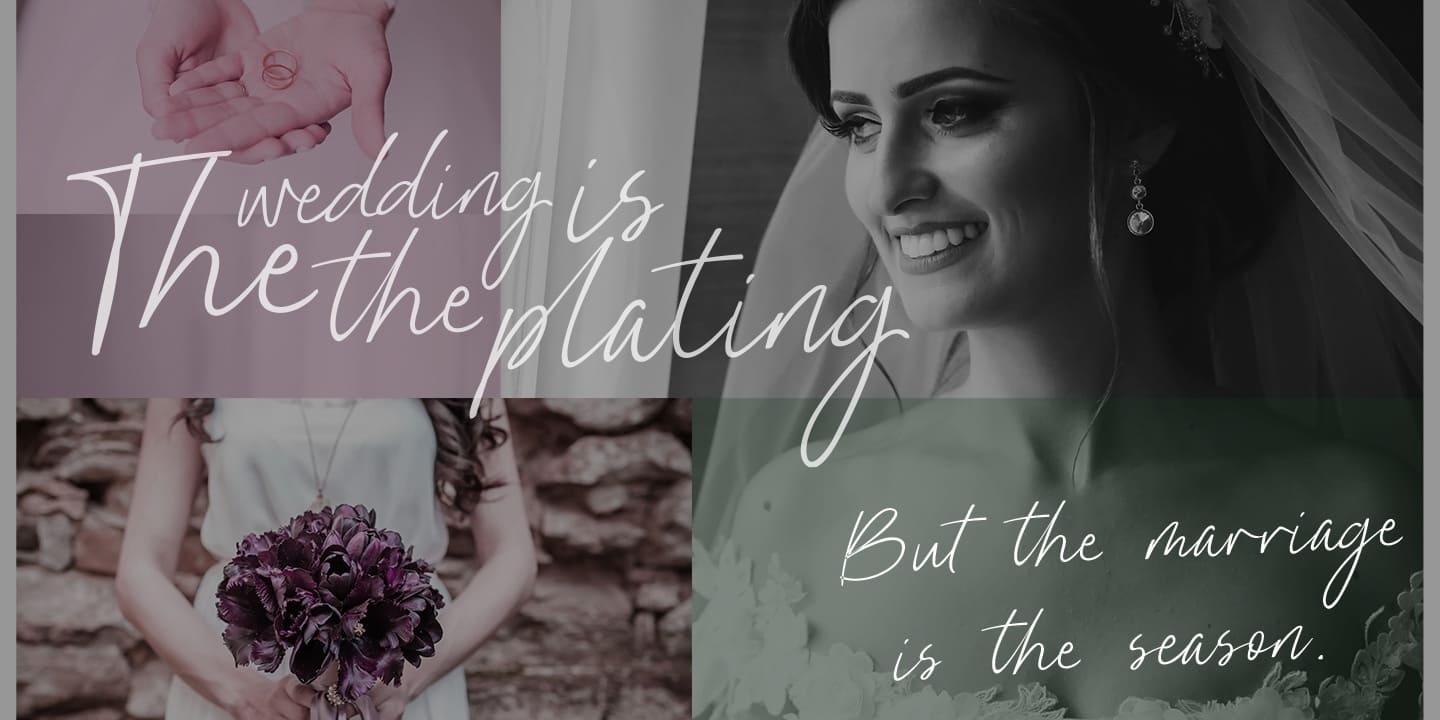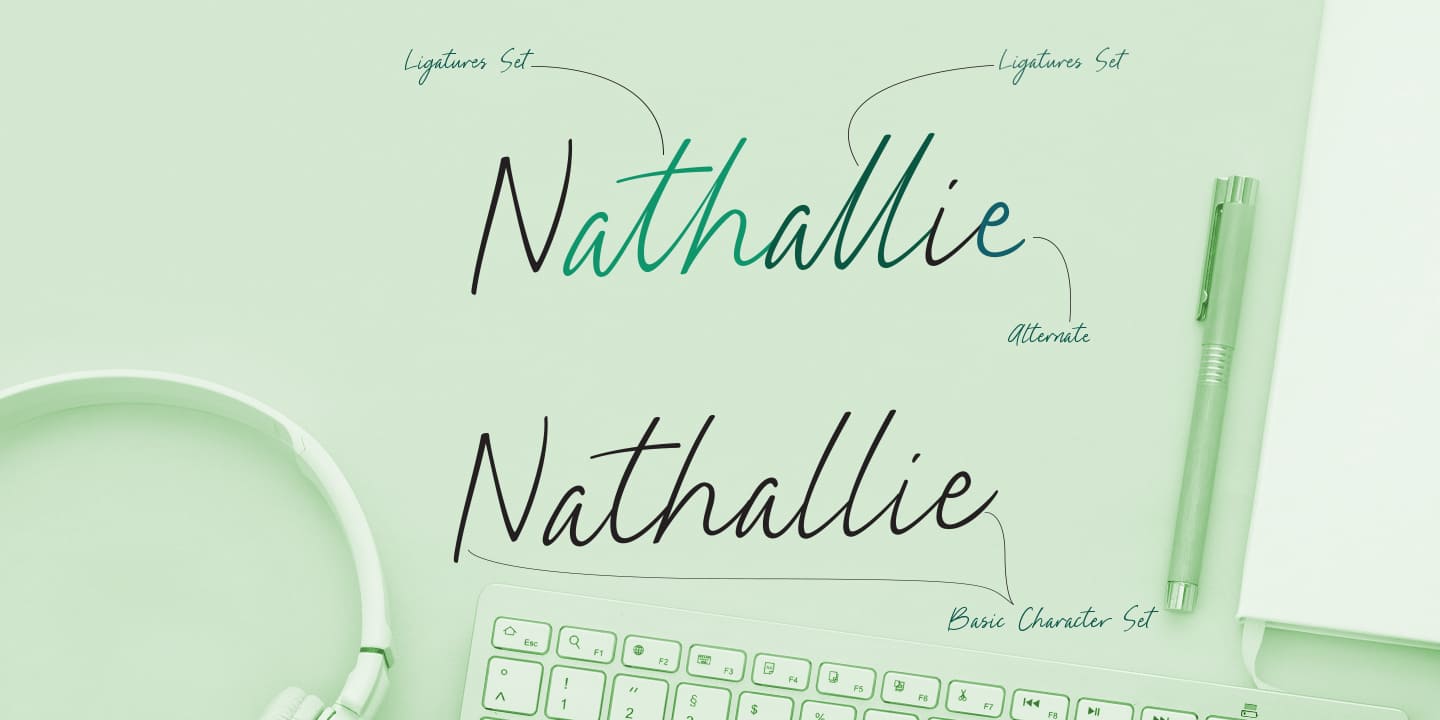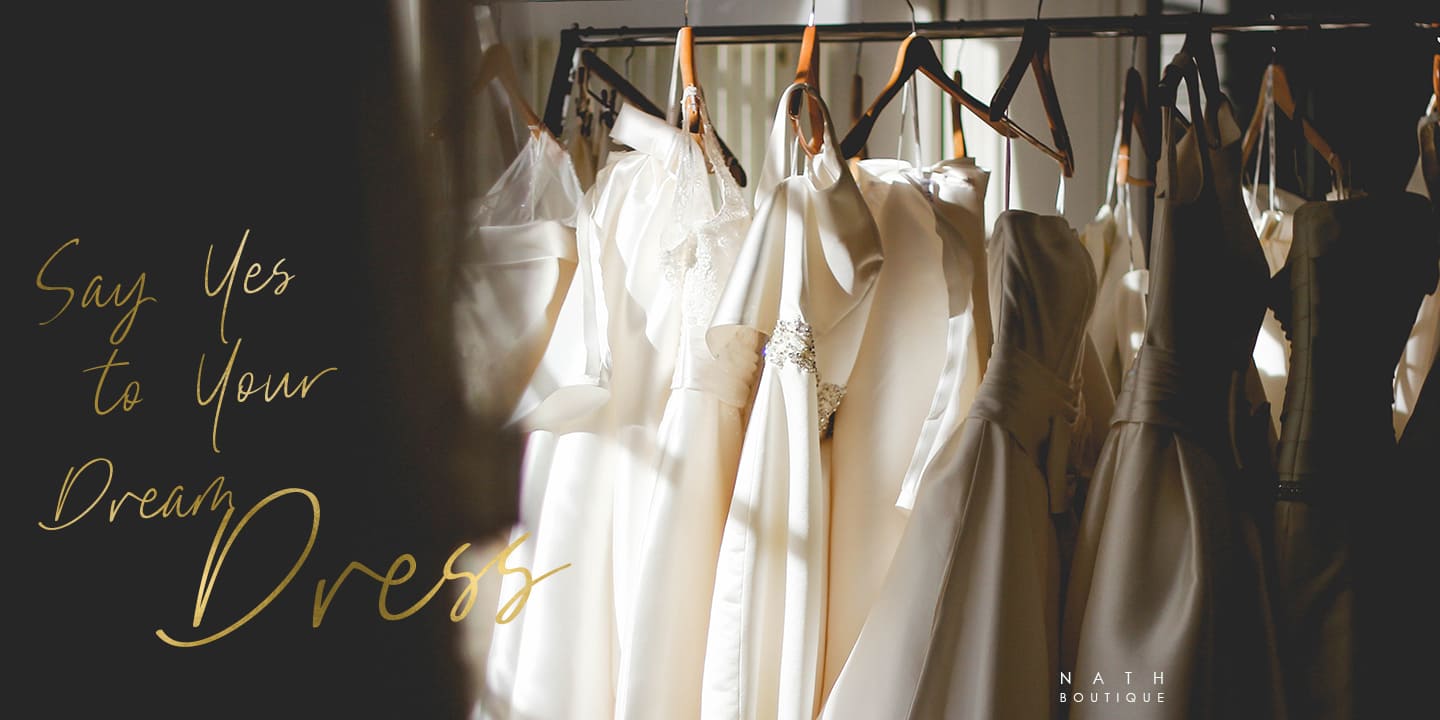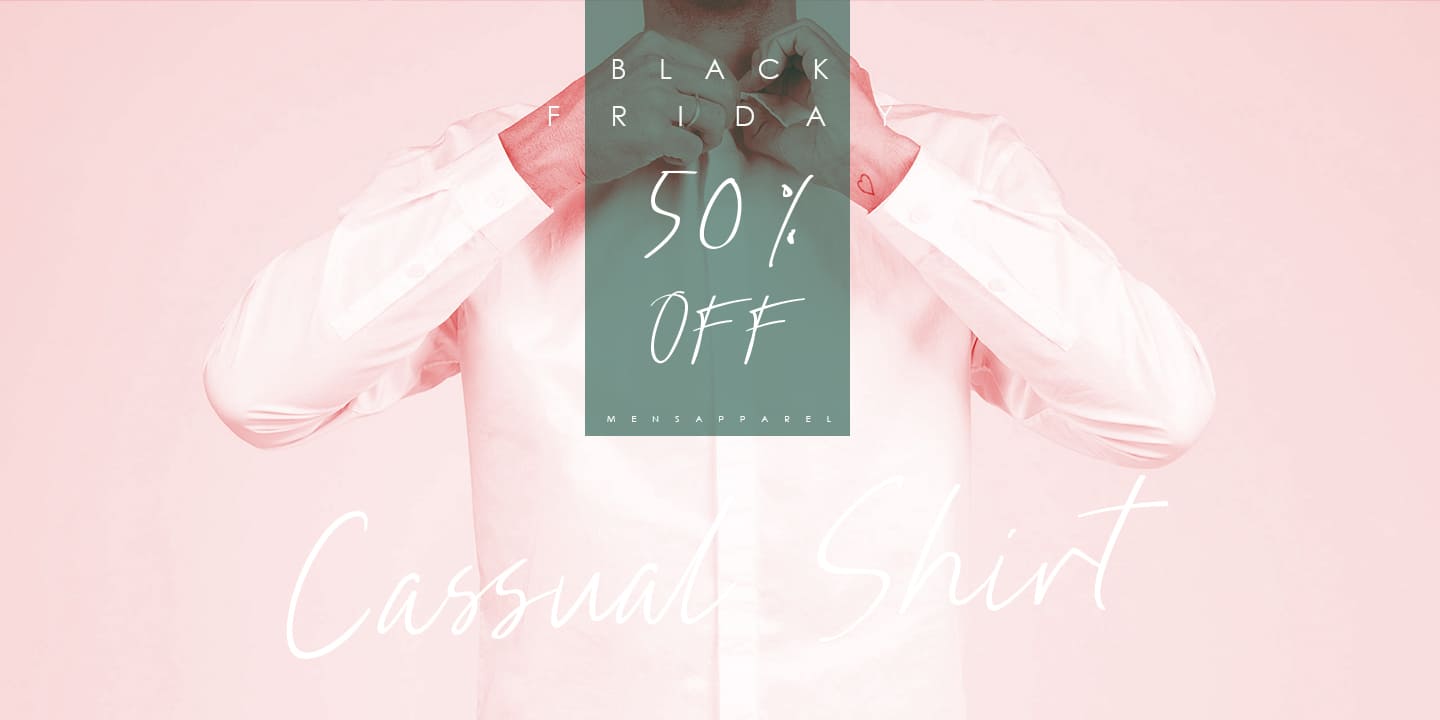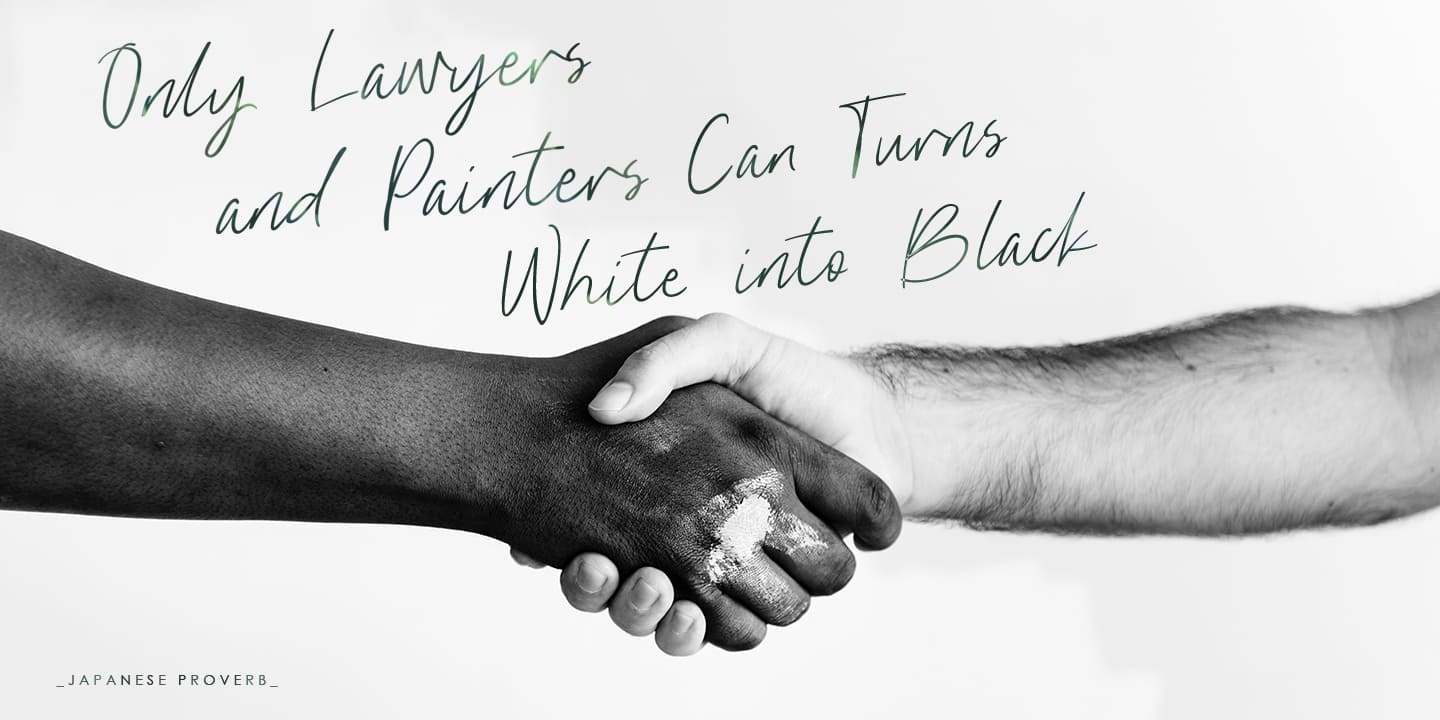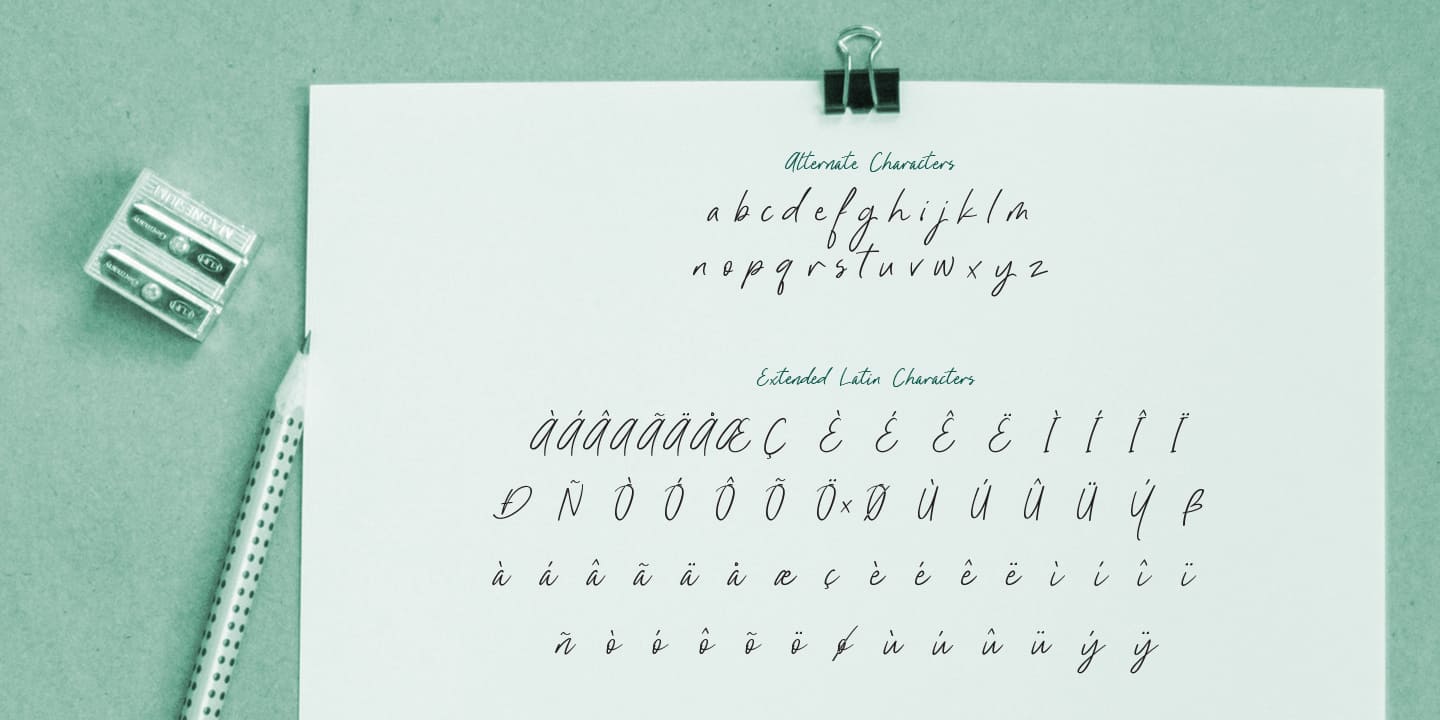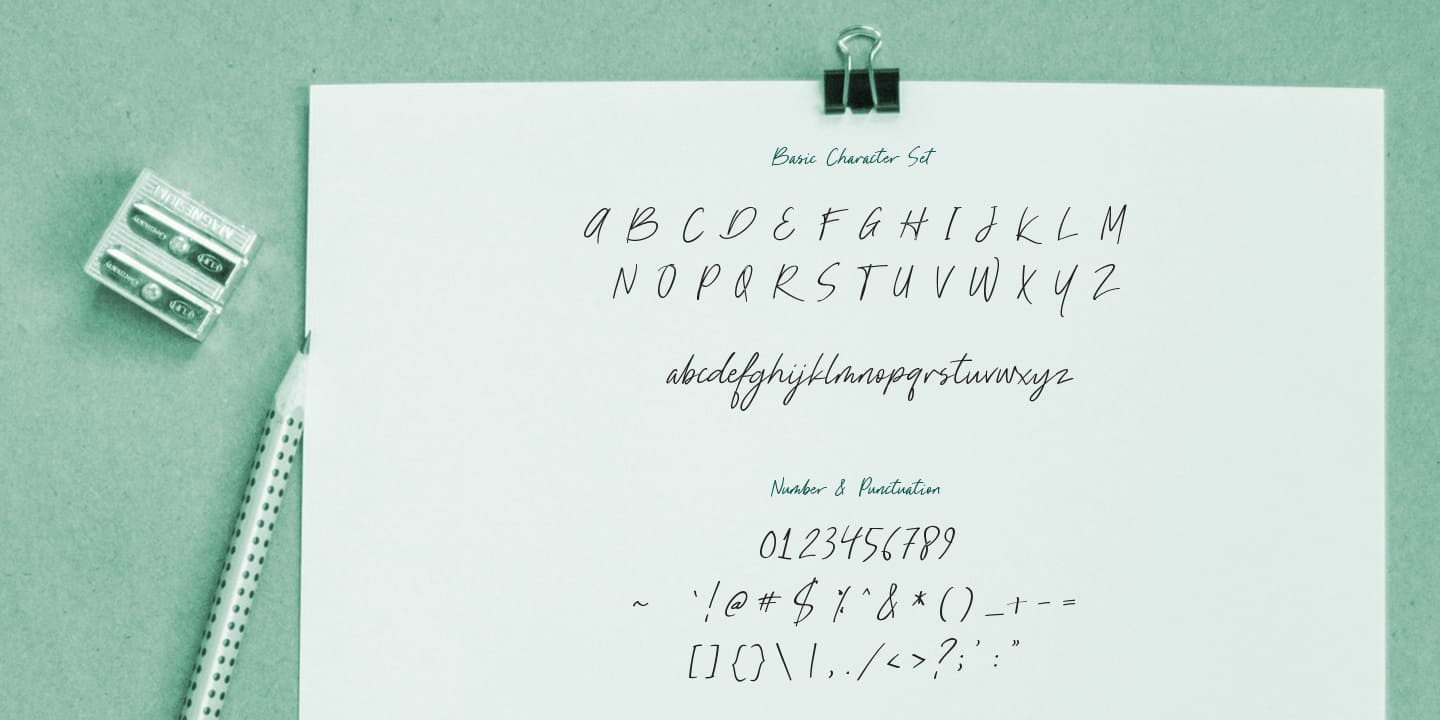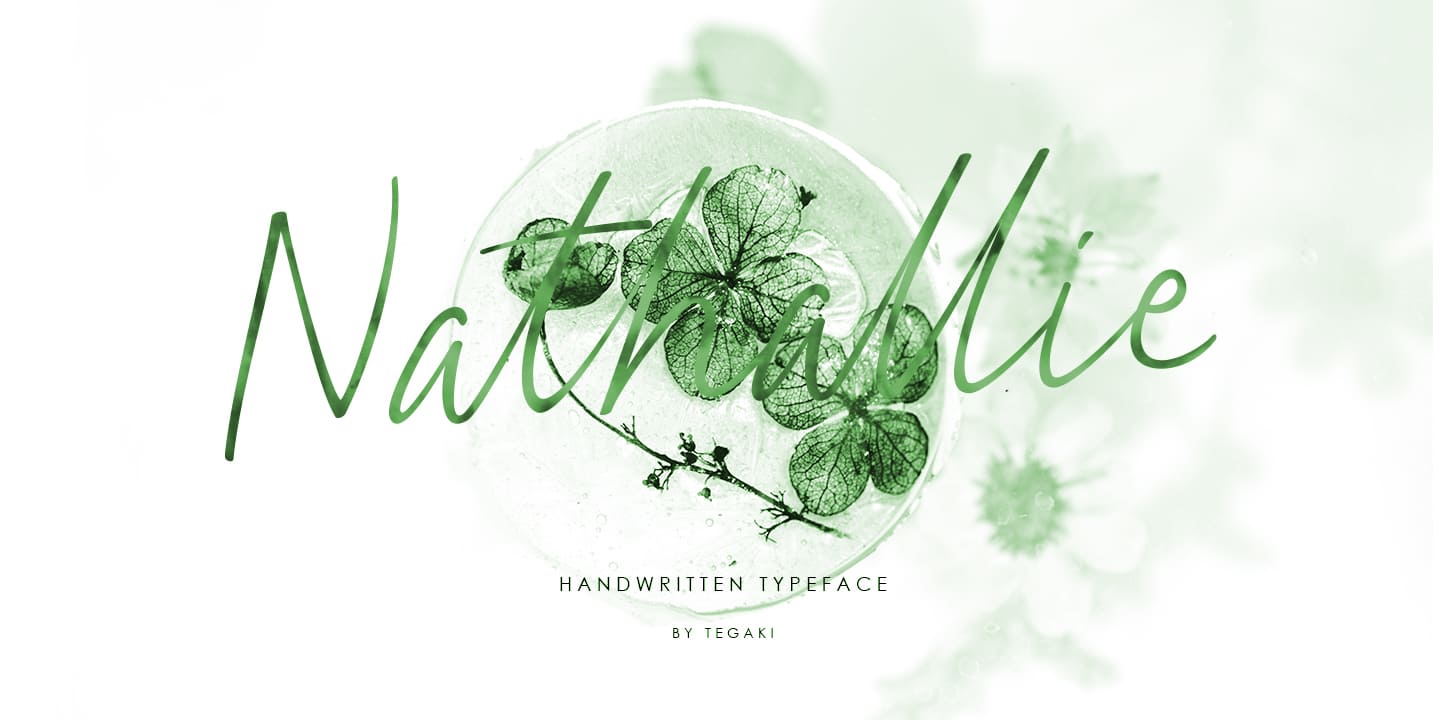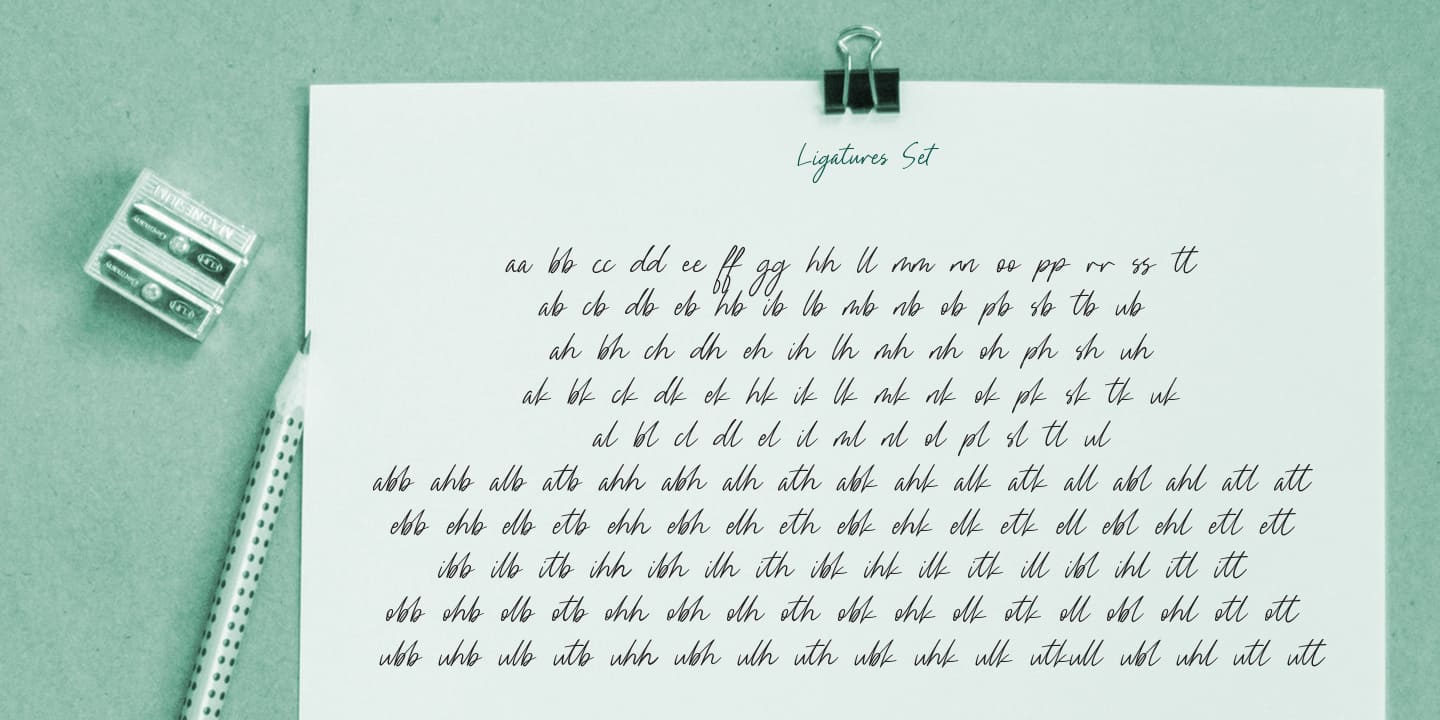
Nathallie Script (1 font)
Nathallie is created with stylist and handwritten characters and is PUA encoded. Nathallie is a natural handwritten style that comes with Extended Latin Characters and works perfectly for logos, display, product branding, wedding invitation cards, stationary, packaging, clothing, flyer, apparel, magazines, brochures, labels, posters, badges, etc.
Nathallie comes with 415 glyphs and 26 alternate characters containing opentype features (supported with contextual alternates mode). Nathallie also comes with 164 extended ligatures enabling you to create exclusive pro standard design projects.